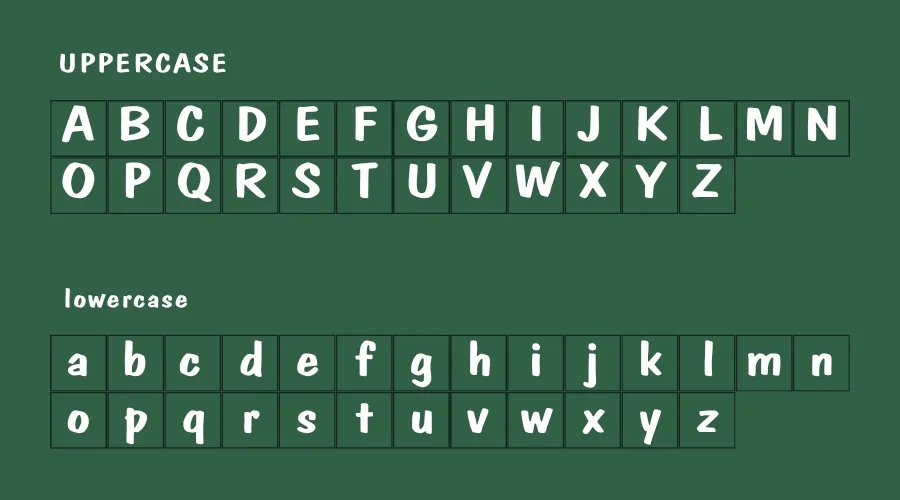
About Dom Casual Ex Font
Peter Dombrezian designed Dom Casual Ex Font it is a Brush text style. The font is beautifully designed and has an attractive appearance it also displays flexibly formed letters due to their strong curves.
If you are looking for a font with lots of traits and bold creative characters, this font style will be a flawless choice. To make a design that is both exclusive and attention-grabbing, you can pair this font with snowwrite font.